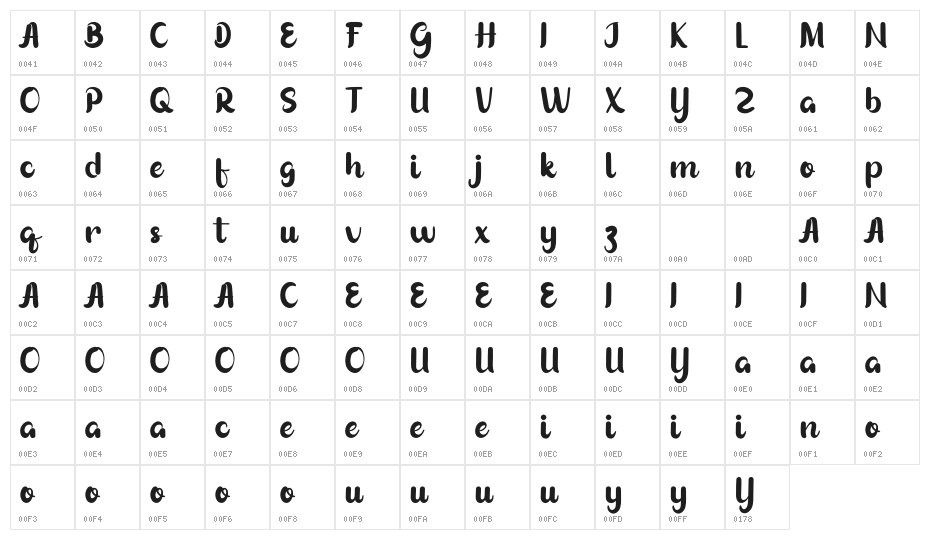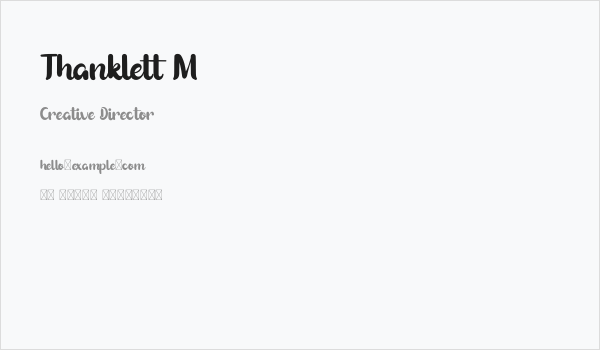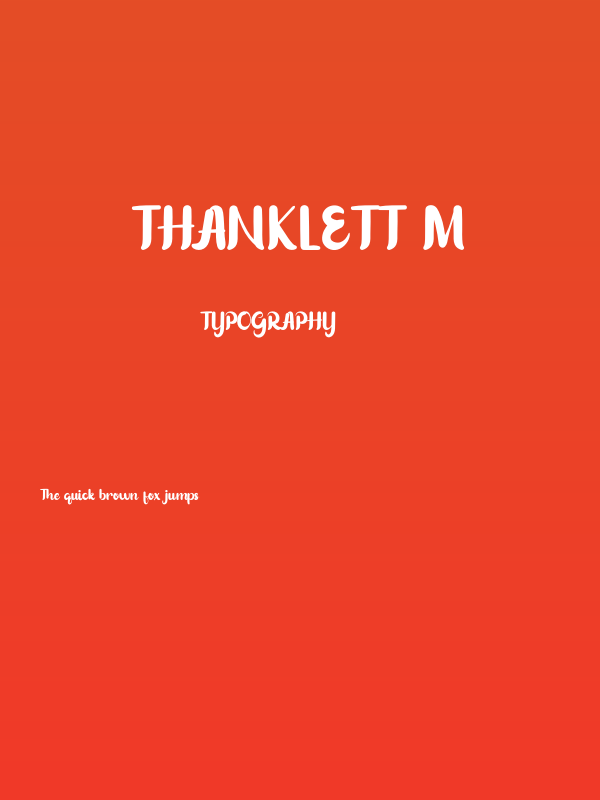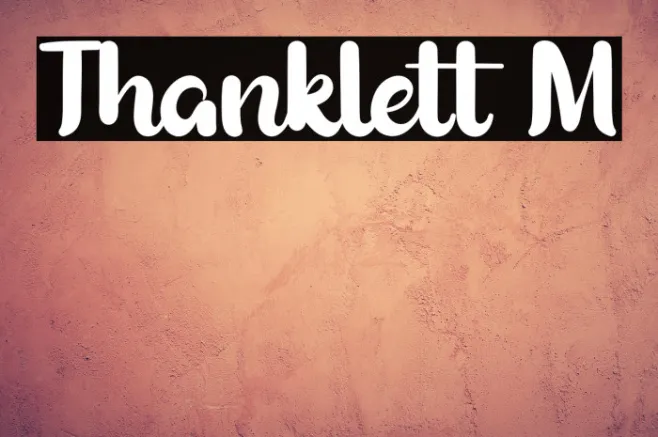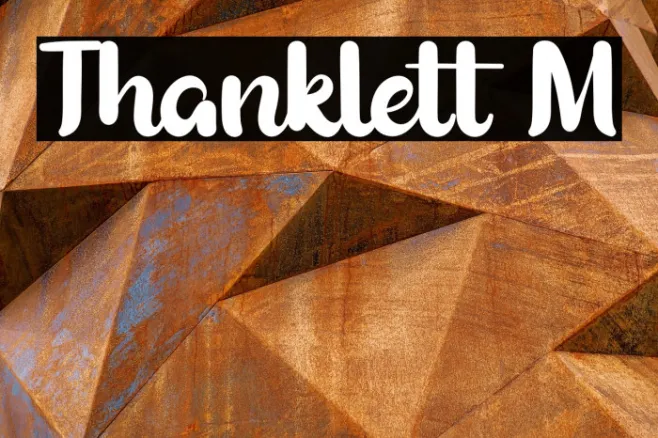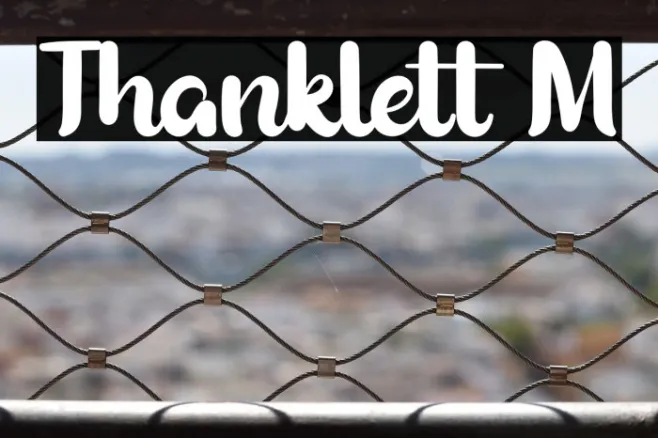
Thanklett M Font
Thanklett M Description
This font features a bold and playful script style with a strong presence. The uppercase letters are characterized by smooth curves and a consistent stroke width, creating a harmonious flow. The lowercase letters maintain the same playful aesthetic, with some characters having unique, whimsical tails that add to the font's charm. The numbers and special characters are designed to match the overall style, ensuring a cohesive look across all text. This font is ideal for projects that require a touch of personality and flair.
| Overall Style | Playful, Decorative |
| Proposed Projects | Ideal for greeting cards, playful branding, children's books, and creative posters. |